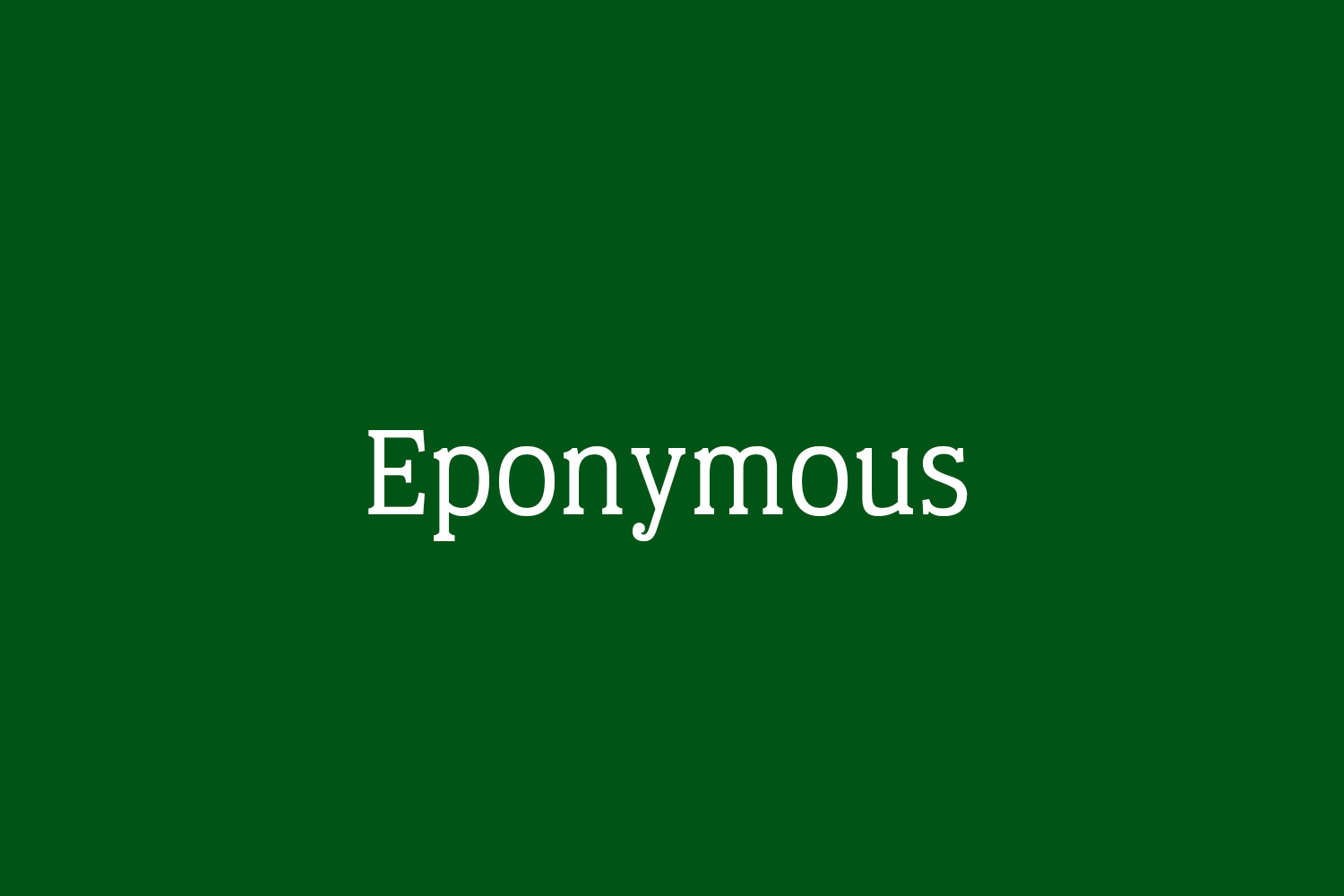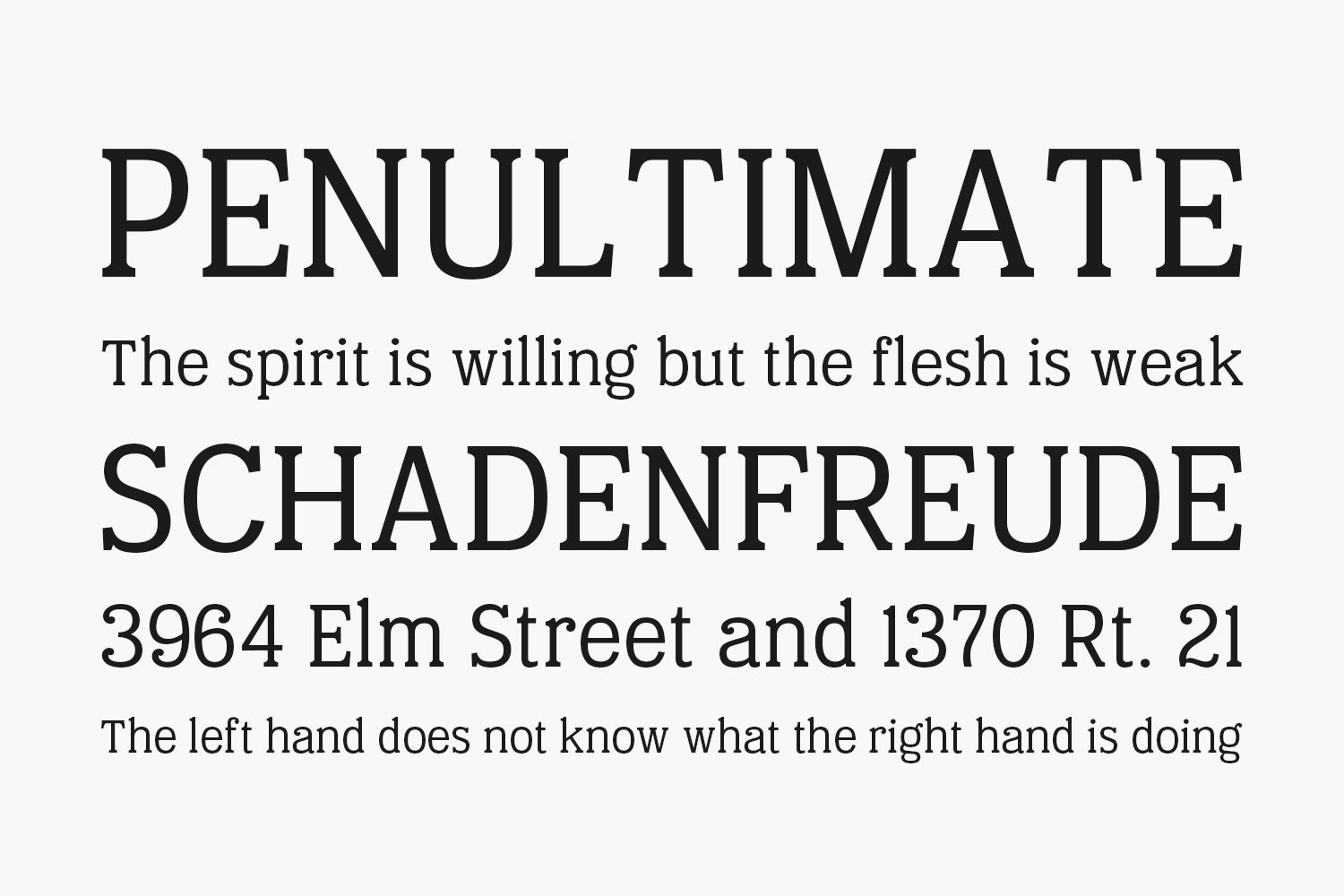
Eponymous Free Font Family is an Egyptian-style typeface with chunky, scalloped serifs. It is available in five weights in both roman and italic.
Key features:
• Eponymous is is an Egyptian-style typeface with chunky, scalloped serifs
• 5 weights in roman and italic:
• Light | Regular | Medium | Bold | Black
• Full set of small caps with diacritics and figures
• 30+ alternate characters
• Full European character set
• 600 glyphs per font
Designed by Paulo Goode